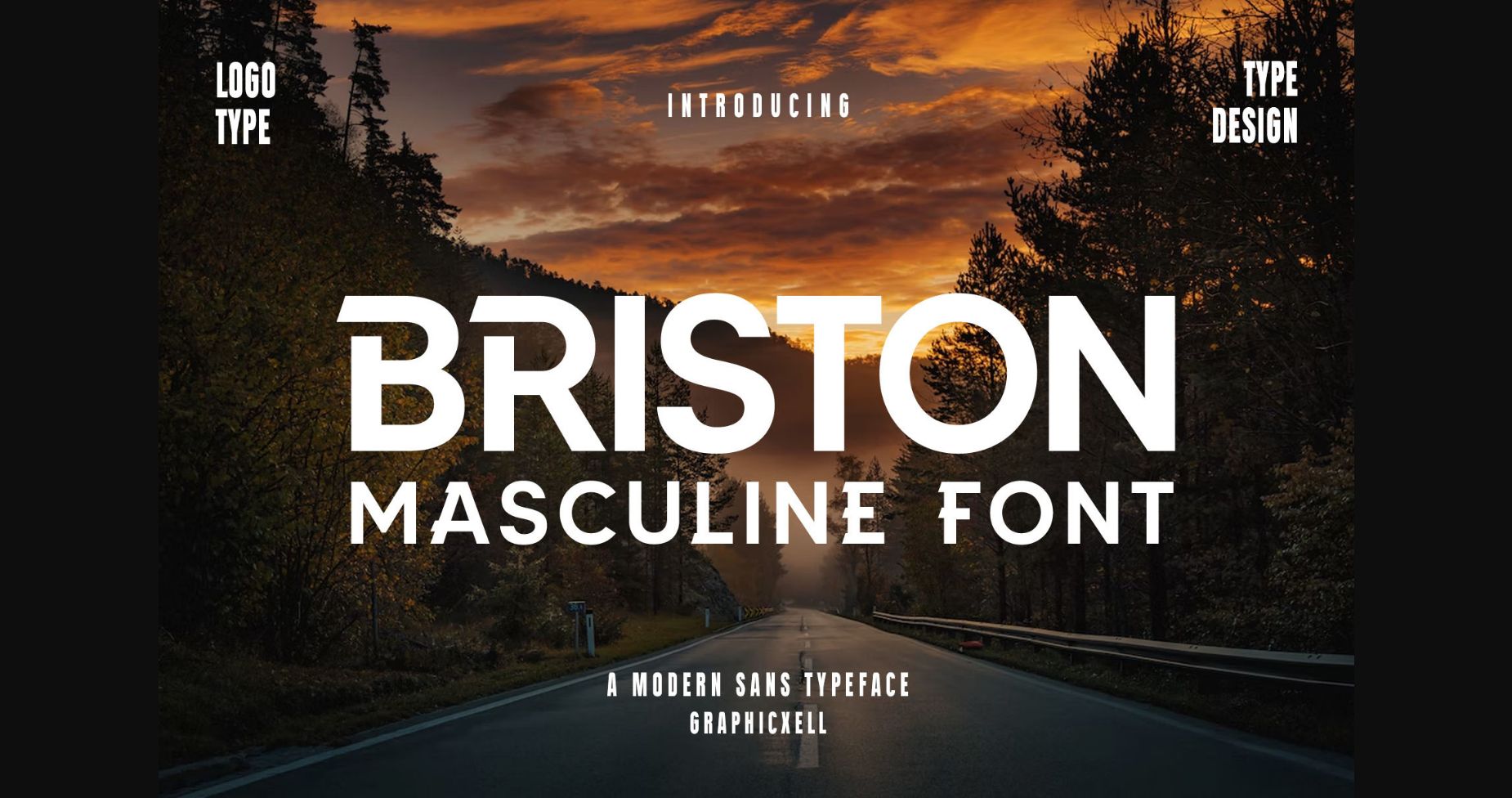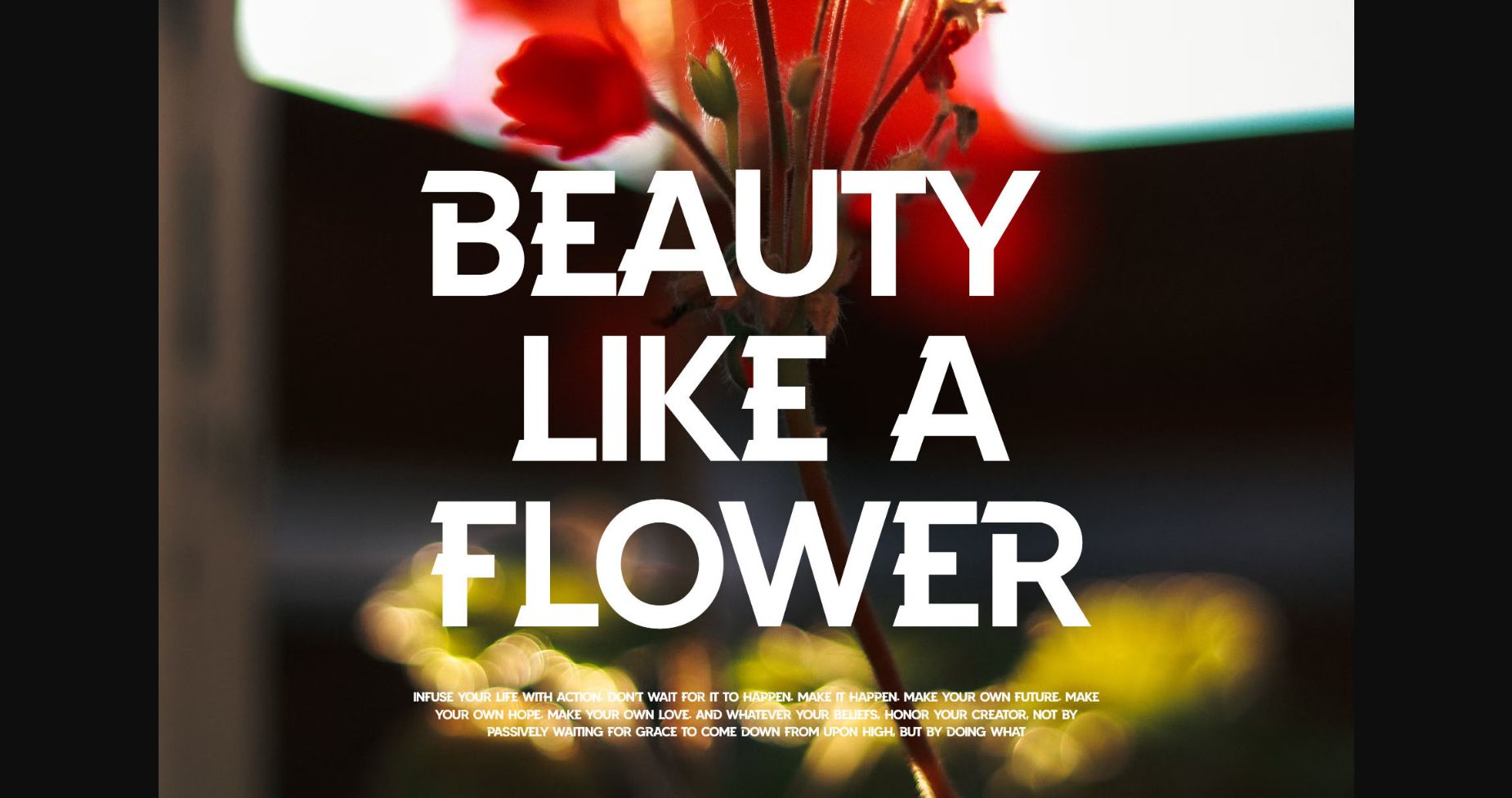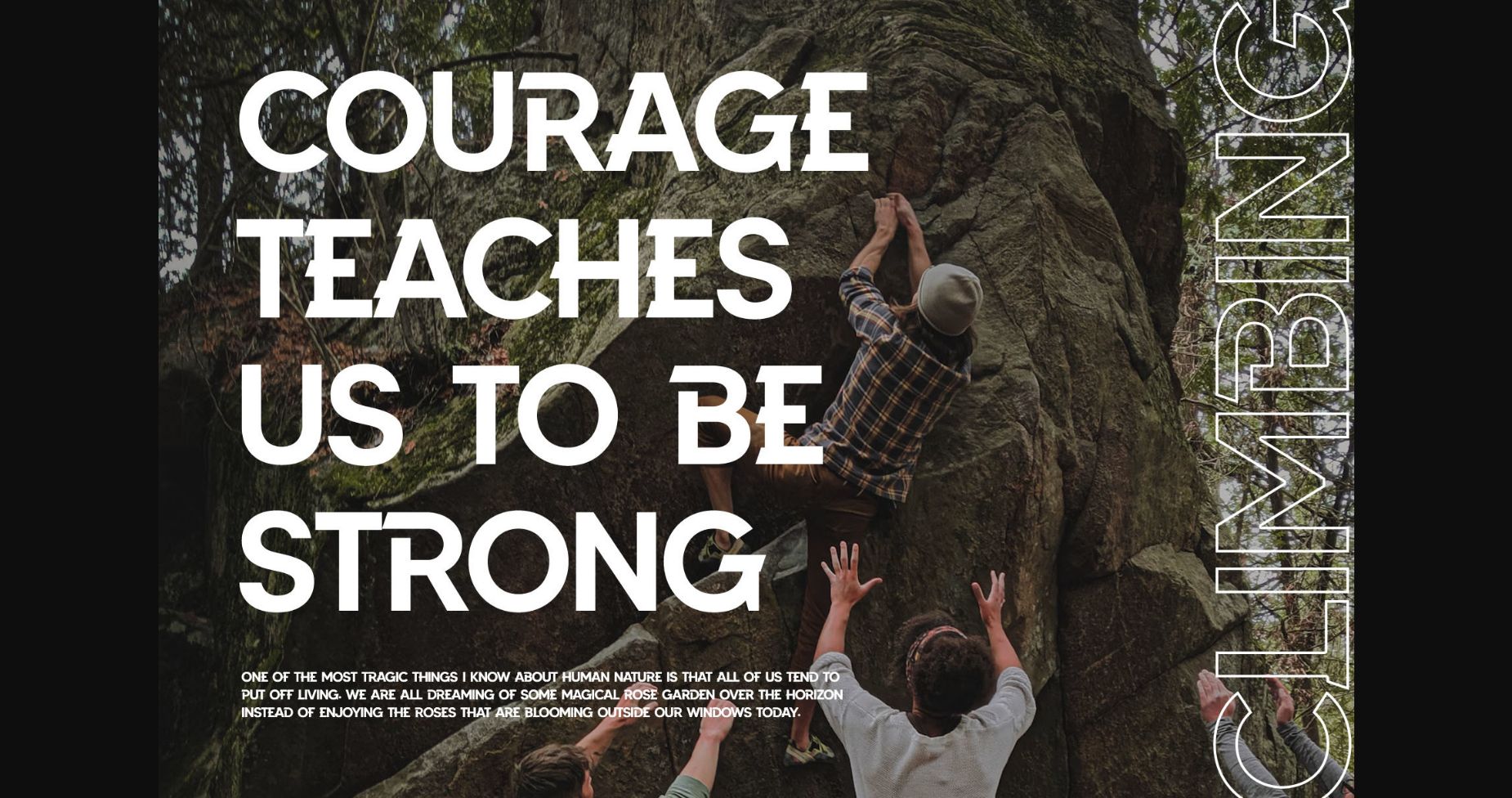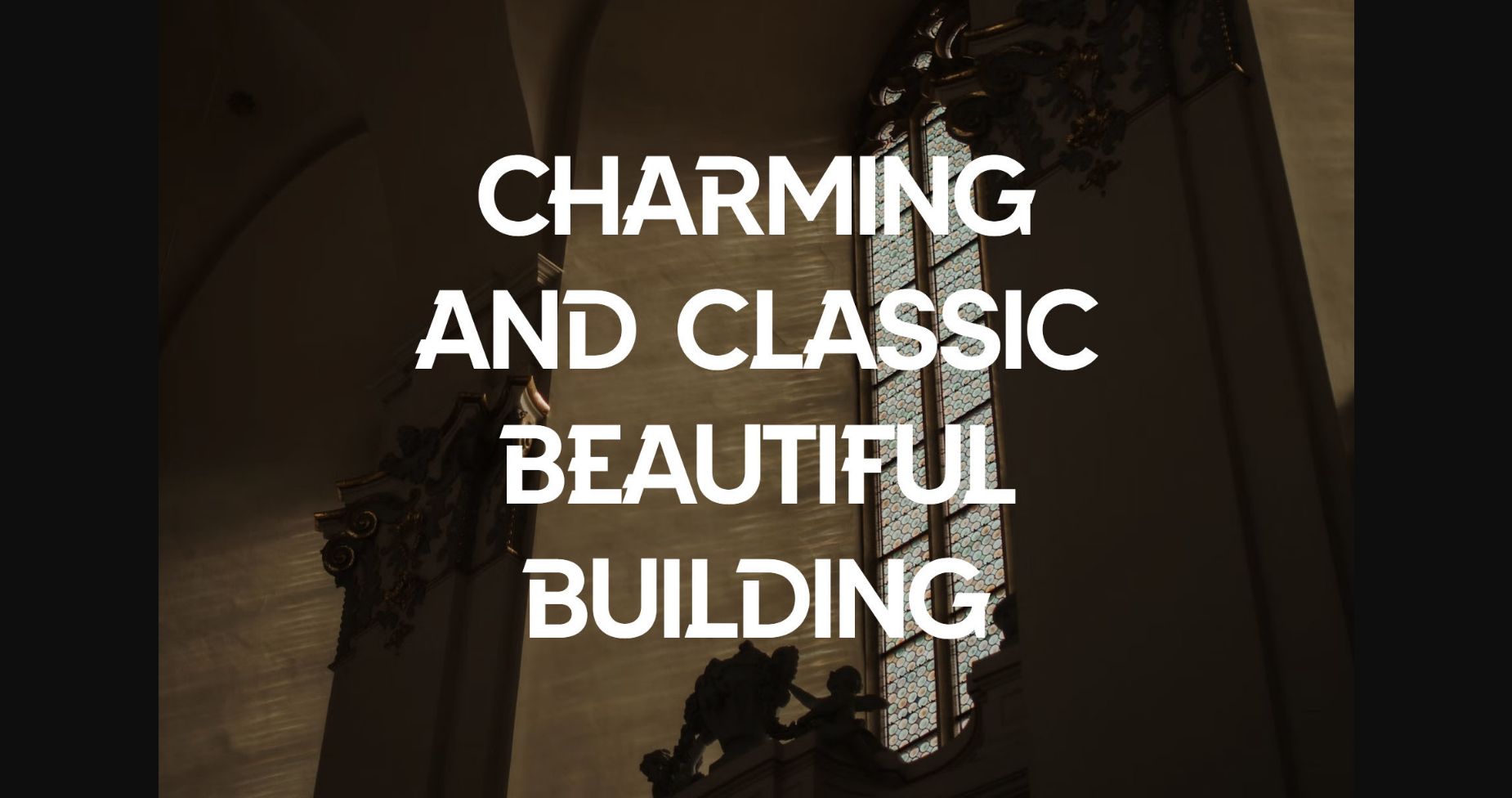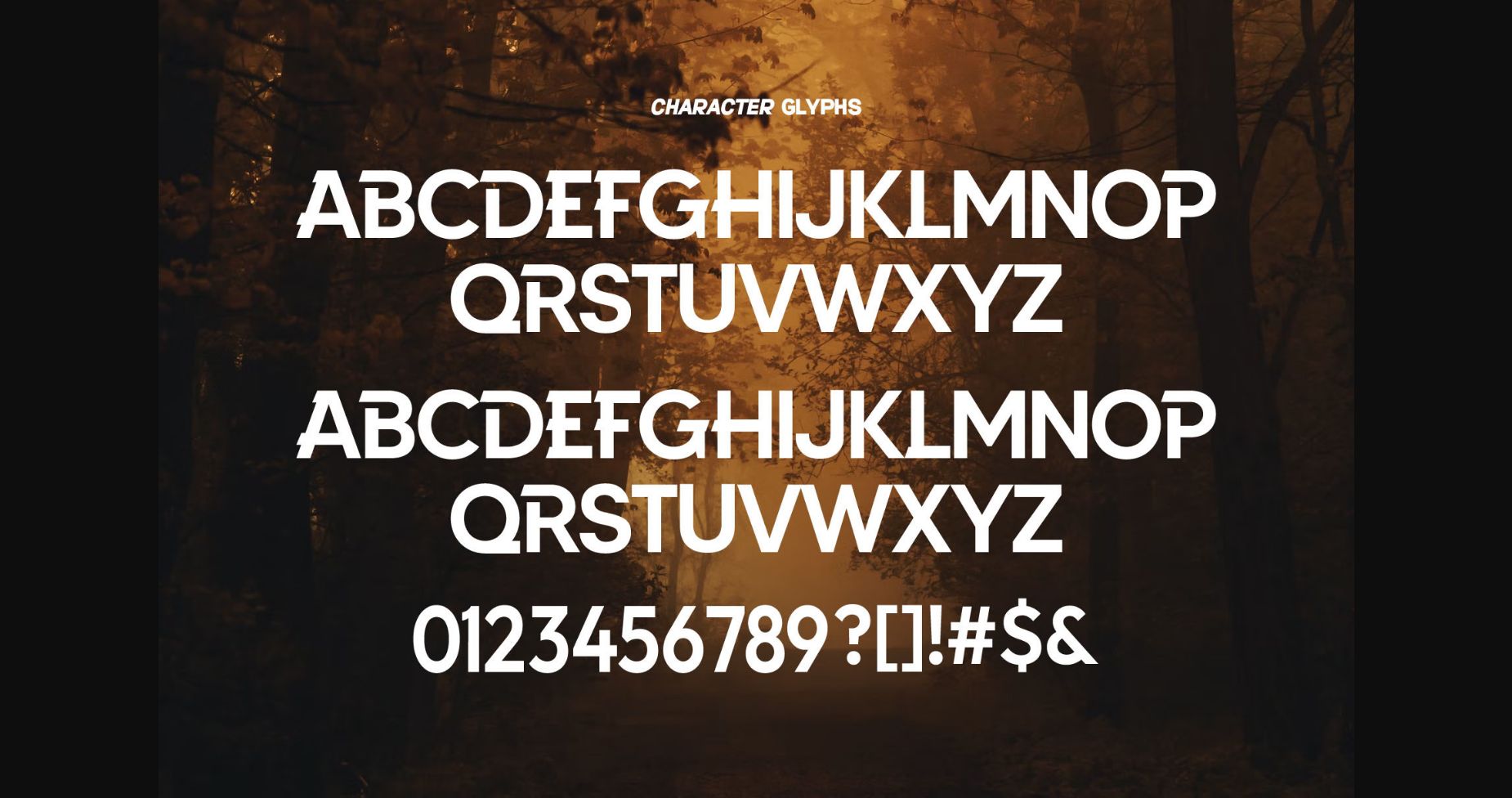
Briston Font
About Briston Font
Briston Sans is a modern and exquisite sans-serif font. With its clean lines and contemporary design, this font is perfect for adding a sleek and professional touch to any project. Whether you’re designing for print or digital, this font will make your work stand out with its minimalist and sophisticated style.